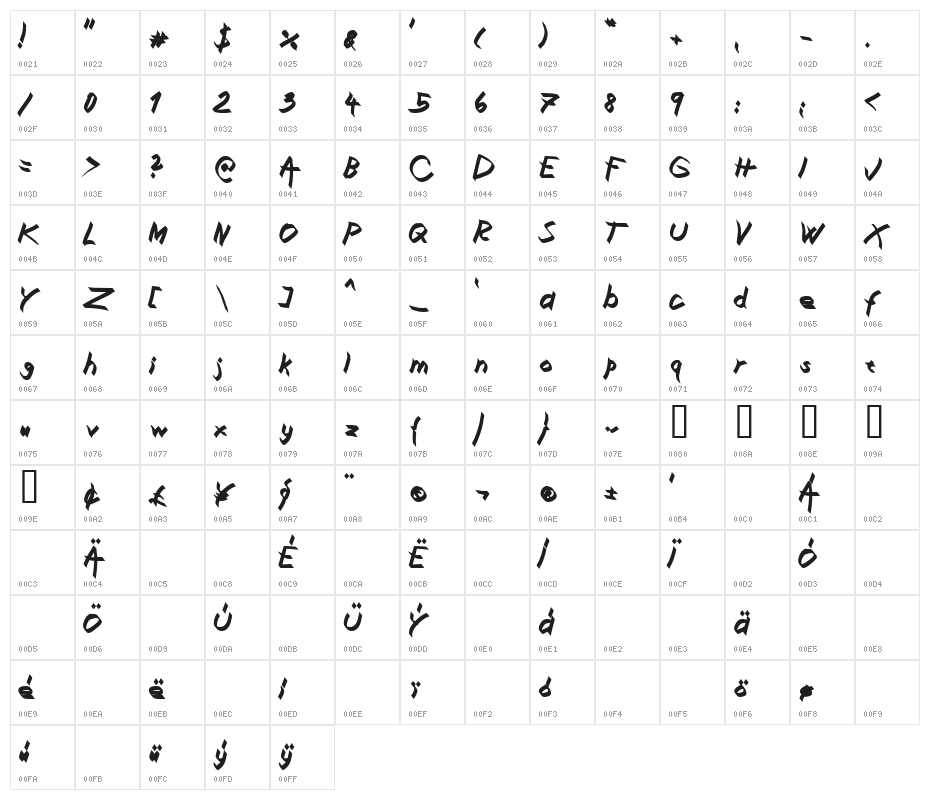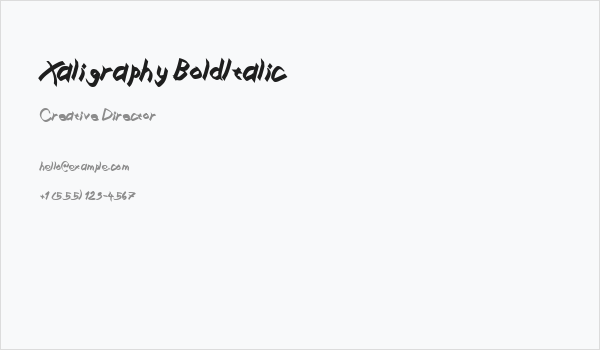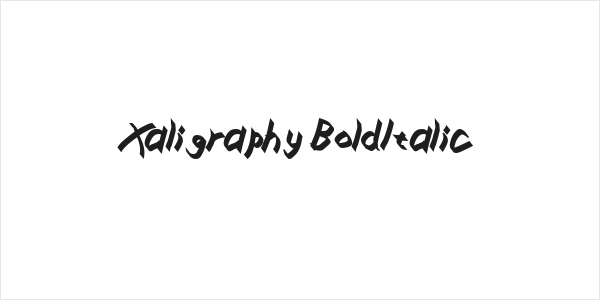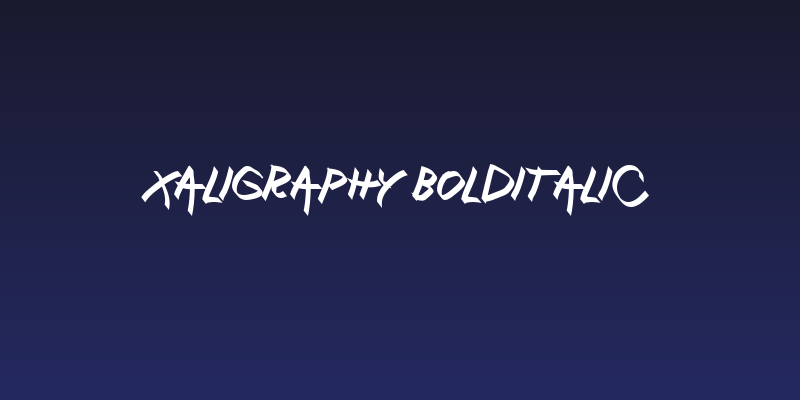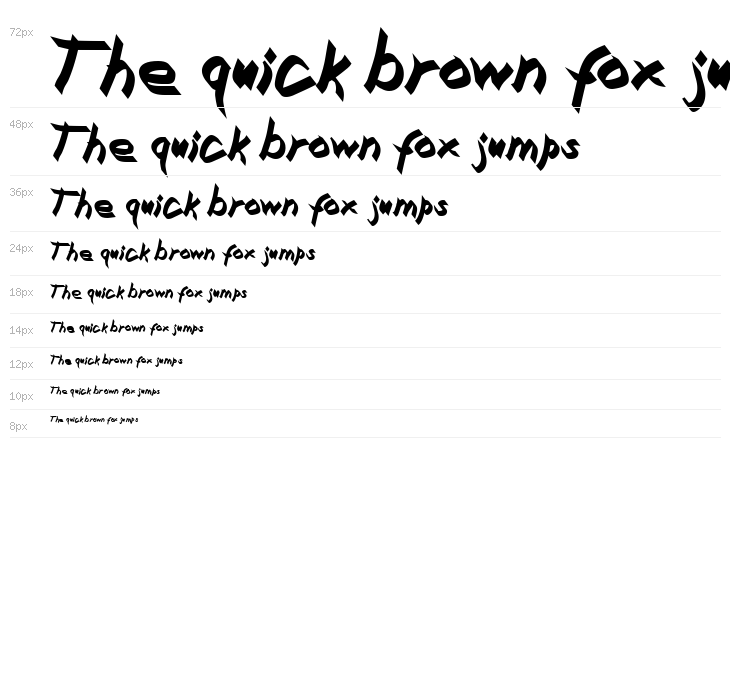
Xaligraphy BoldItalic Font
Xaligraphy BoldItalic Description
This font features a bold and dynamic style with a distinct italic slant, giving it a sense of movement and energy. The characters are crafted with sharp, angular lines that create a striking visual impact. The uppercase and lowercase letters maintain a consistent style, with a slightly condensed form that enhances readability while retaining a unique flair. Numbers and special characters are designed to match the overall aesthetic, making the font versatile for various applications. The boldness of the strokes combined with the italicized form makes it suitable for attention-grabbing headlines and creative designs.
| Proposed Projects | Ideal for branding, poster design, and any project requiring a bold, energetic typeface. |